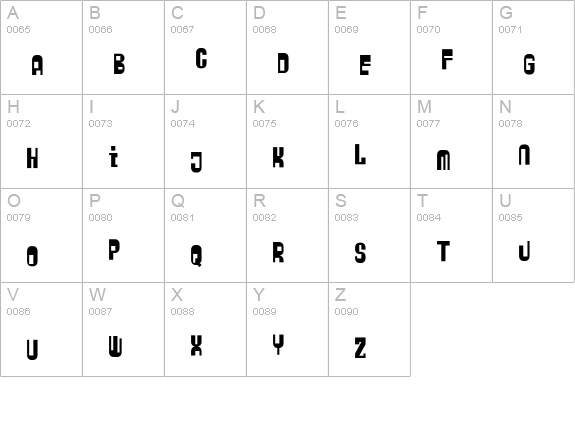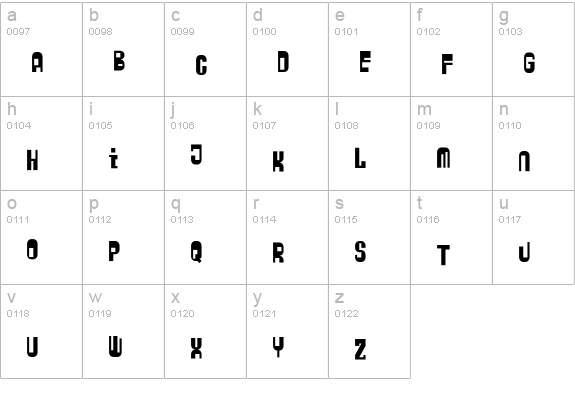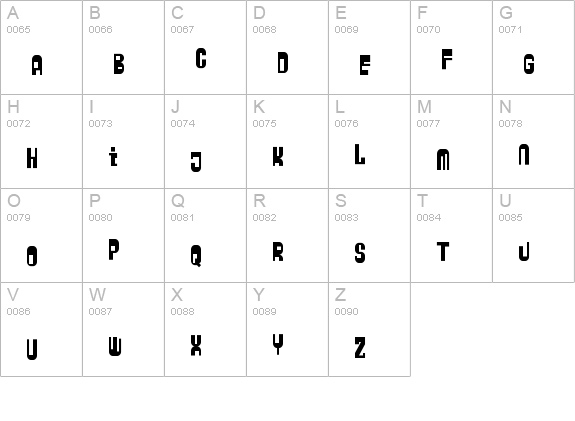
ZyberBob Font Details
Introducing ZyberBob font, a trendy and versatile typeface that is perfect for a wide range of design projects. With its sleek and modern appearance, ZyberBob is sure to make your text stand out and grab attention. This unique font features clean lines and sharp edges, giving it a contemporary and stylish look. Whether you're creating a logo, poster, website, or any other design, ZyberBob will add a touch of sophistication to your work. The best part? ZyberBob is available for free download at FontsMarket.com, making it accessible to everyone looking to elevate their designs with a touch of elegance. Don't miss out on this opportunity to enhance your projects with the sleek and modern ZyberBob font. Download it today and take your designs to the next level!